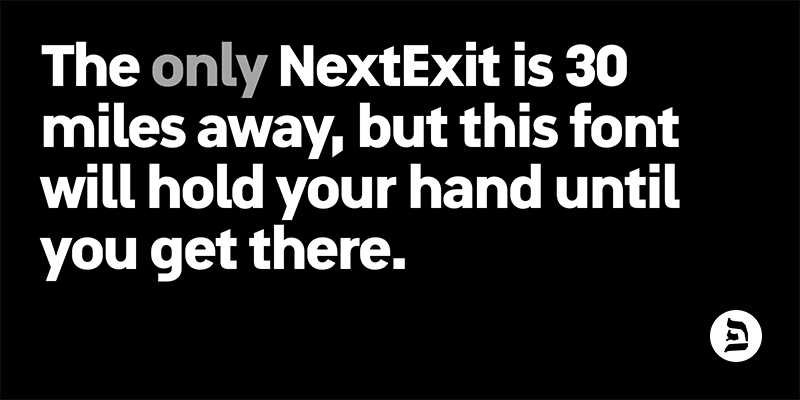
NextExit Variable Font Free Download is a bold and energetic display typeface that captures the raw spirit of road signs, street culture, and DIY design. With its chunky letterforms, dynamic personality, and gritty character, NextExit is perfect for posters, zines, album covers, event flyers, or any project that thrives on attitude and edge.
This font isn’t about playing it safe—NextExit makes a statement. Its variable functionality lets you fine-tune weight and expression, allowing for a wide range of design possibilities, from heavy-impact headlines to more restrained yet still characterful subheads. Whether you're designing for print or screen, its flexibility ensures your typography always hits with precision.
What really makes this typeface stand out is its fusion of retro sign-painting vibes with modern typographic engineering. It feels spontaneous and rebellious, but it’s also meticulously crafted for readability and control. Designers love it for its visual punch and how effortlessly it grabs attention without compromising on clarity.
NextExit is more than just a typeface—it’s a creative detour off the safe and expected path. Use it when you want your words to speak louder, move faster, and stand unapologetically on their own.